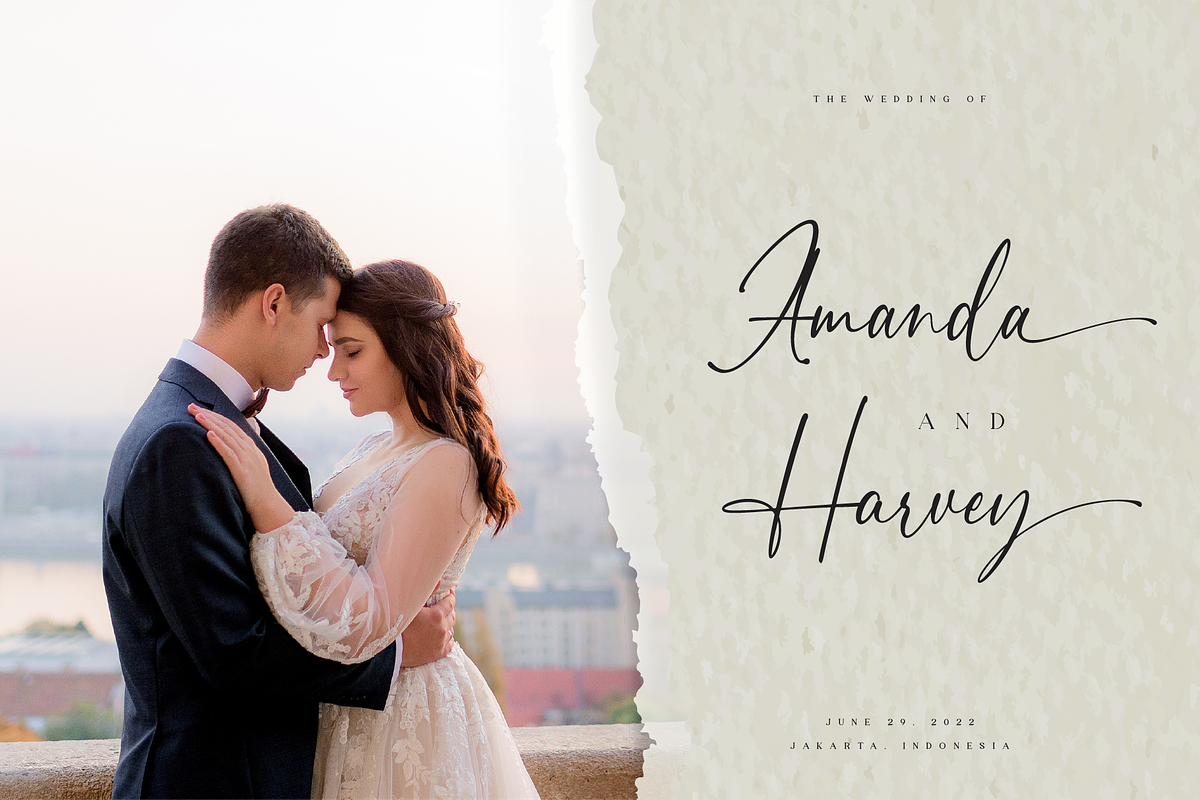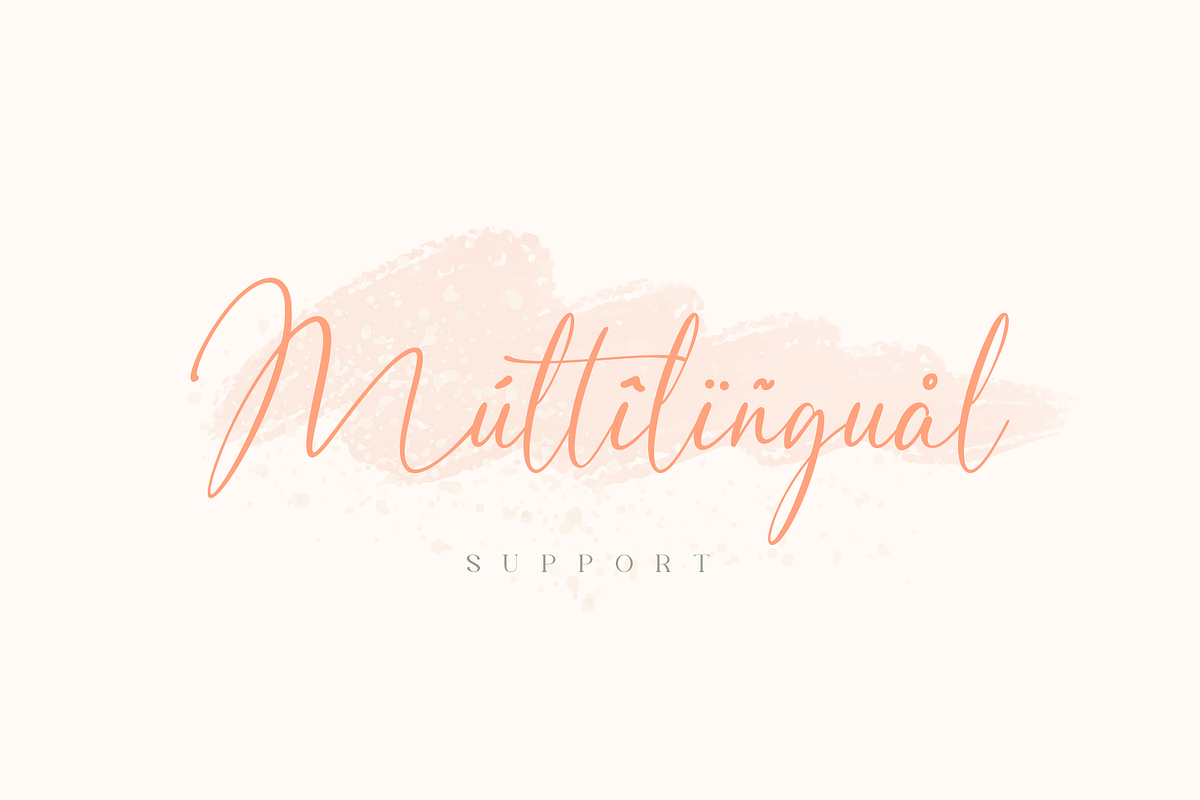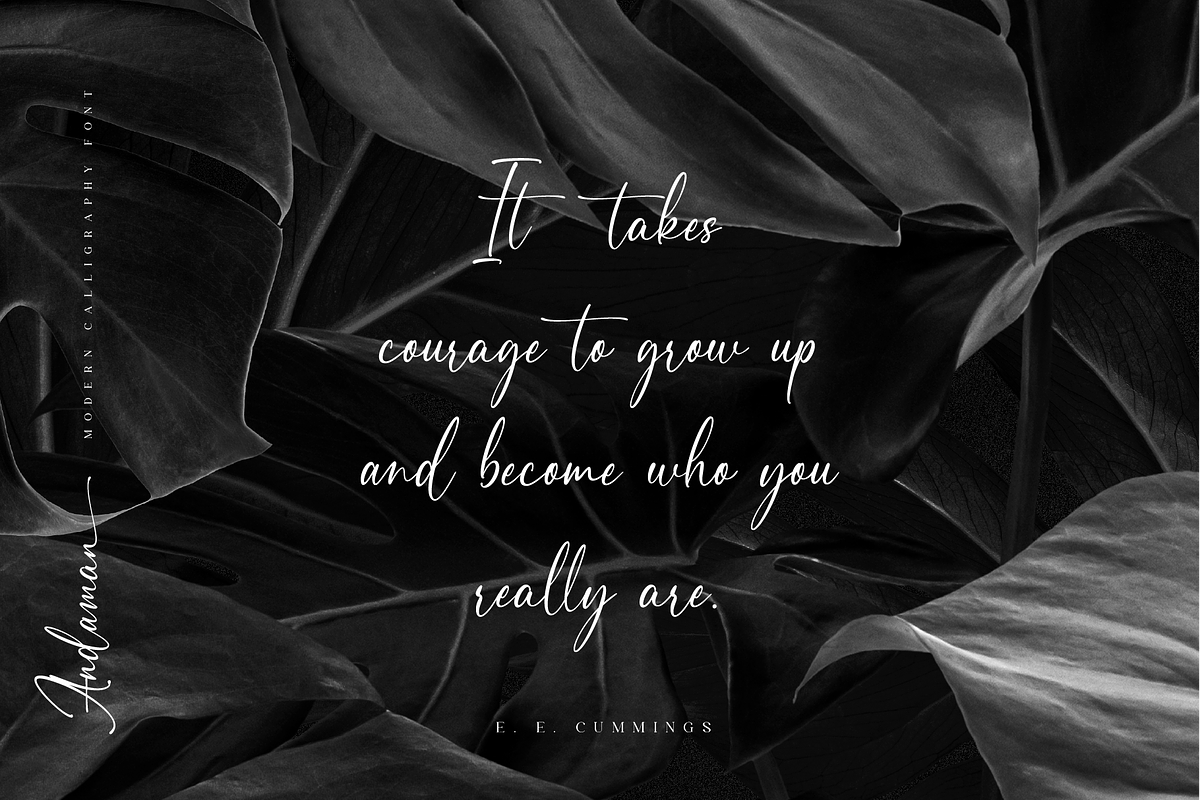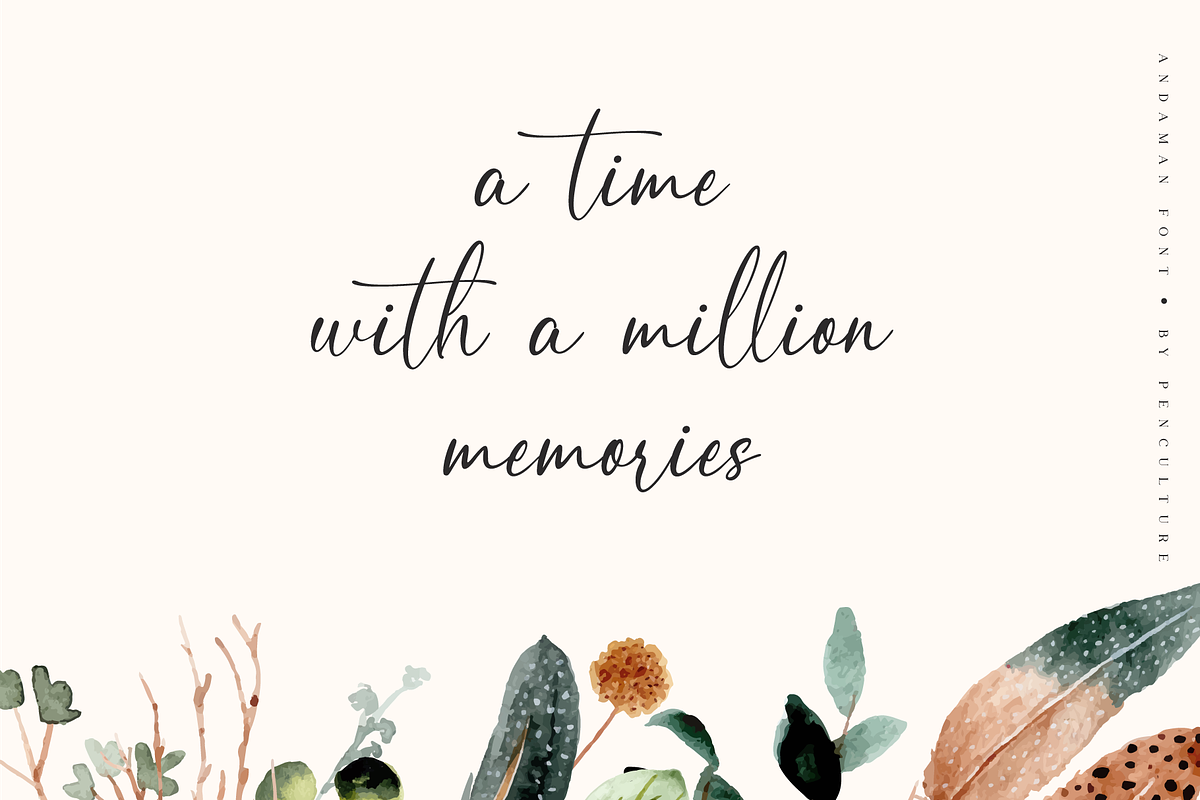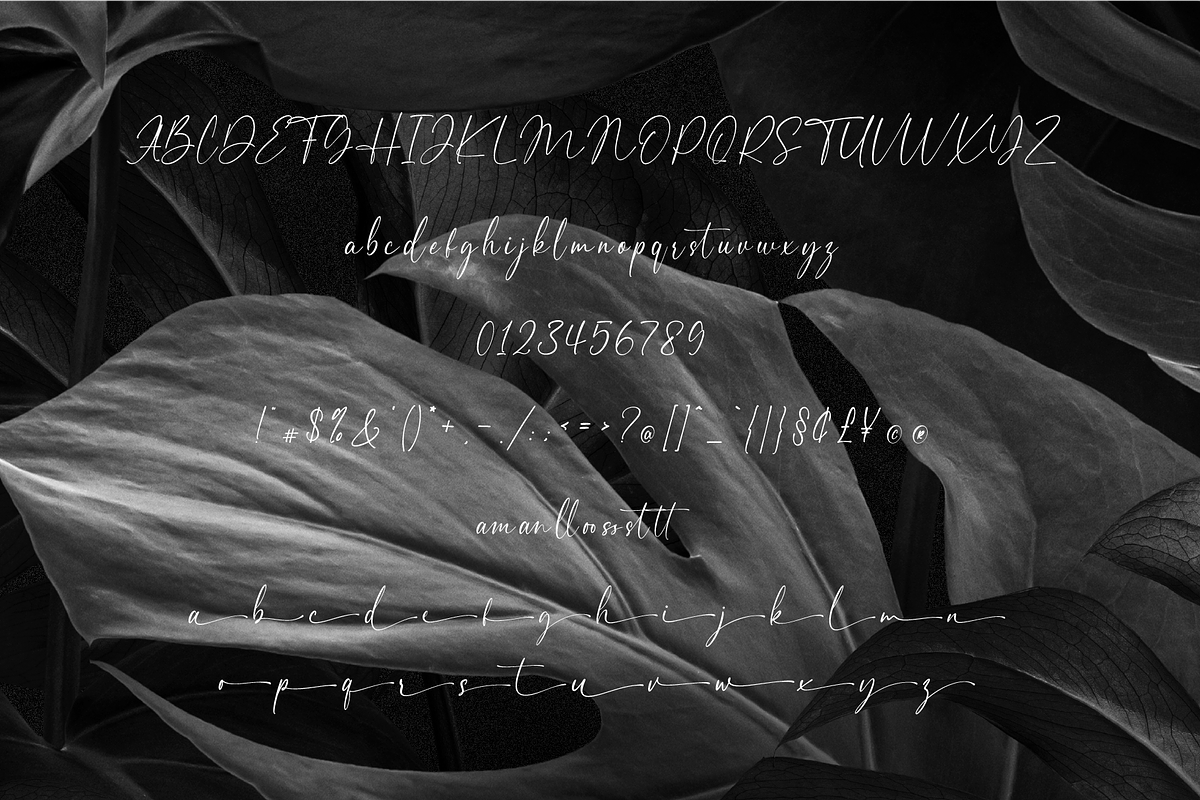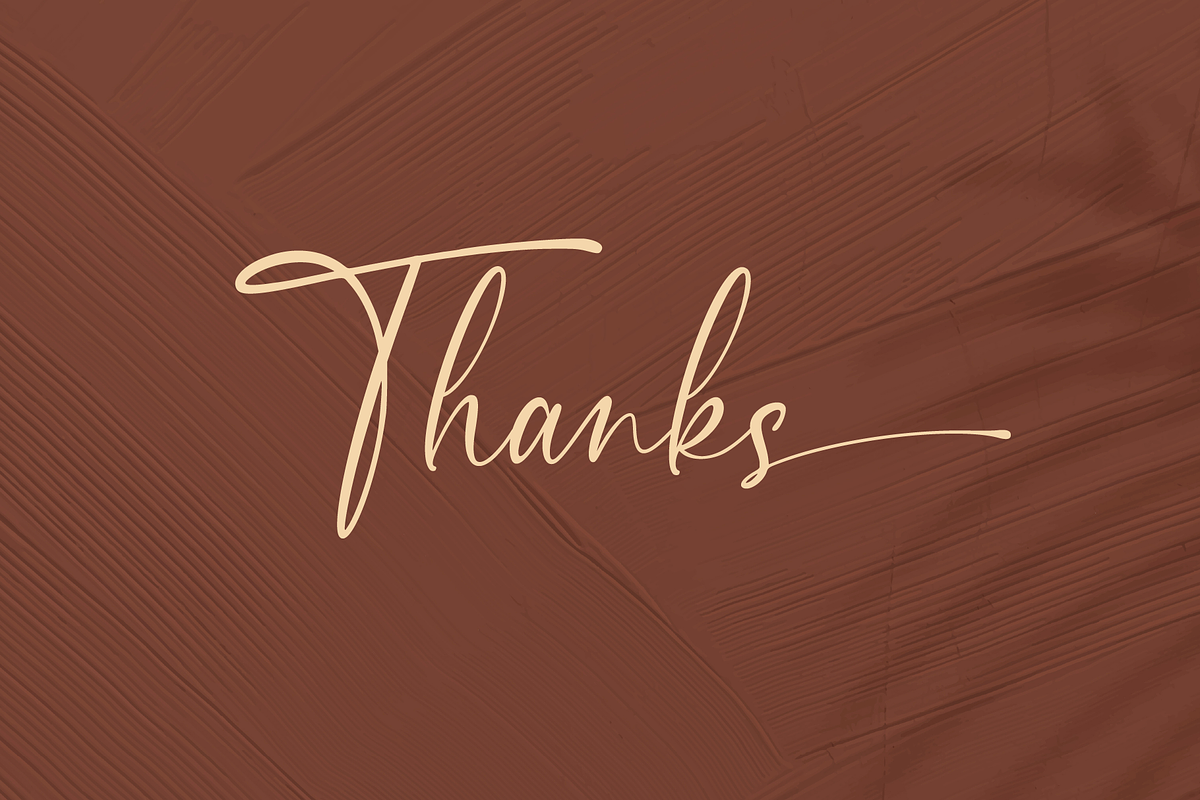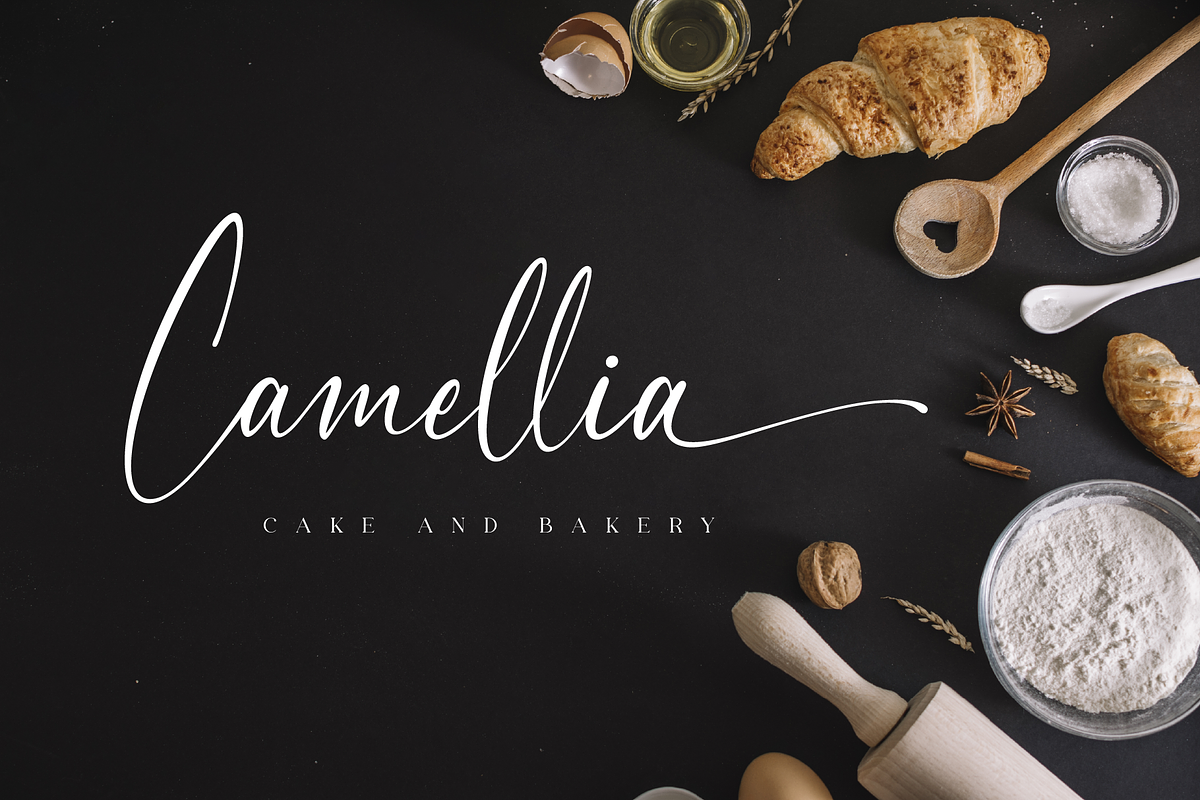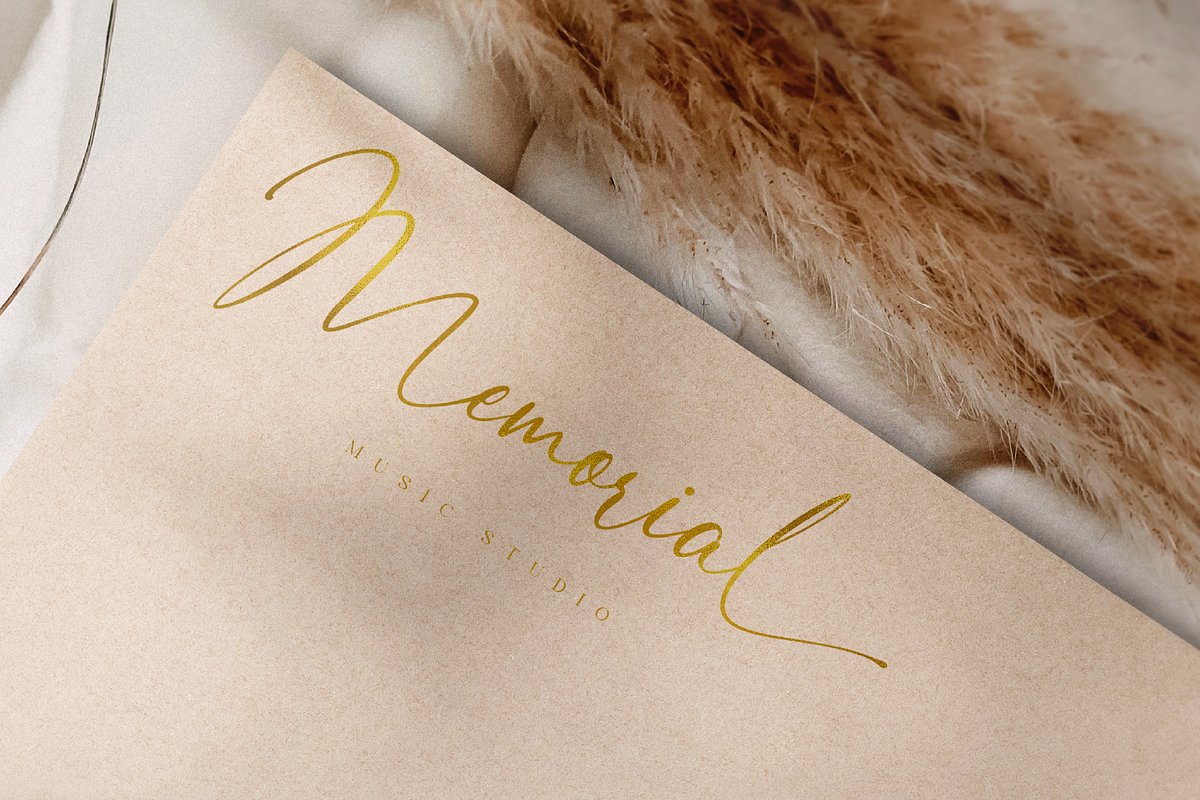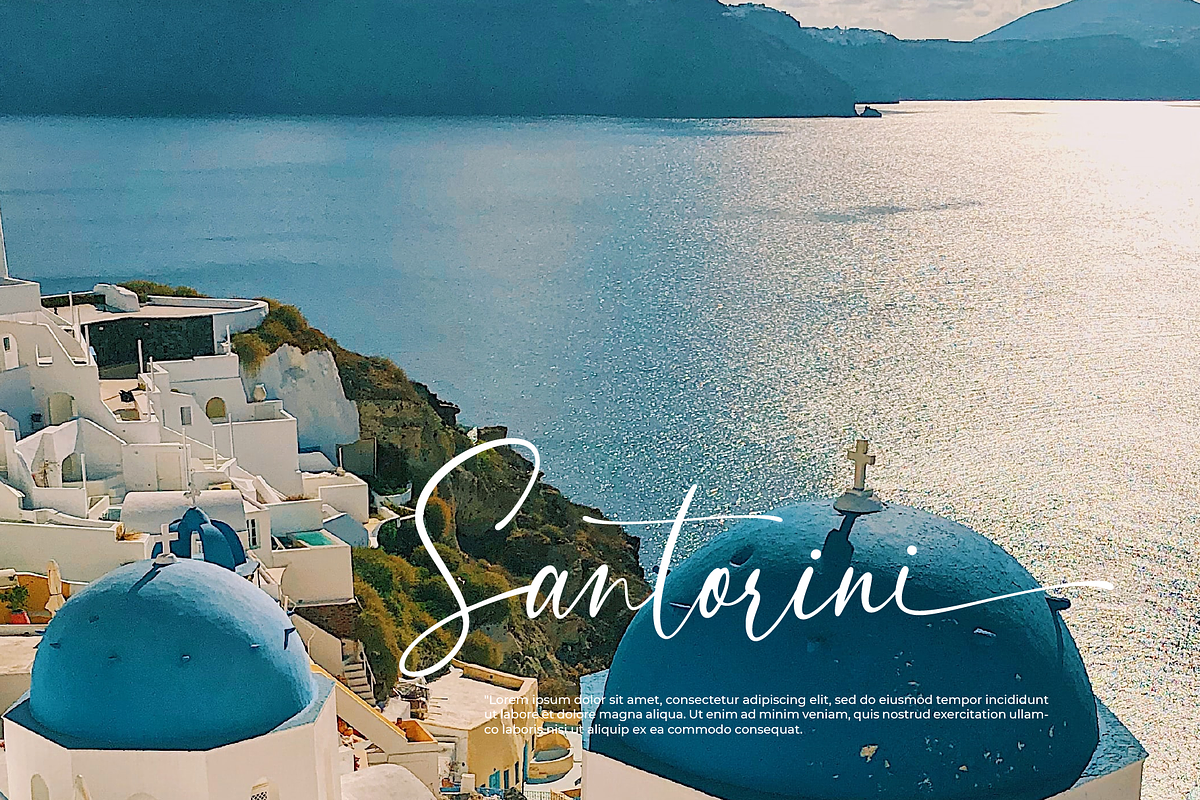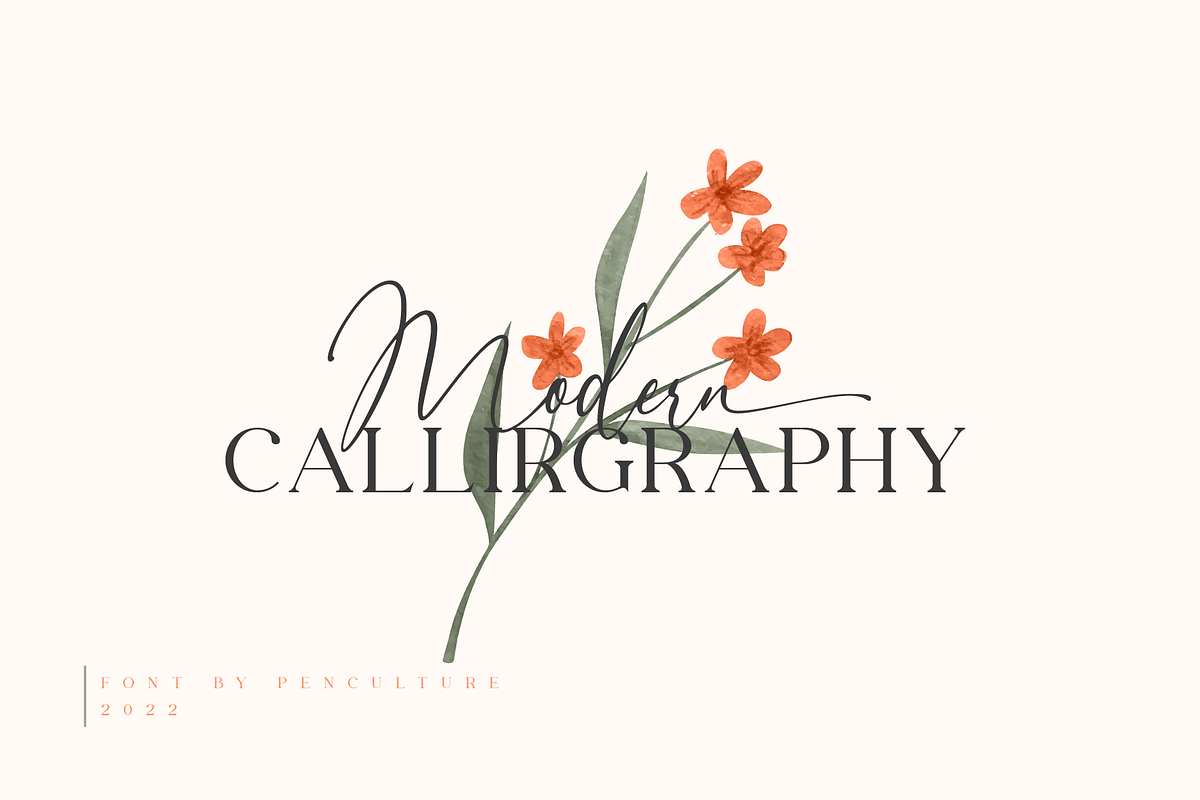
Andaman // Modern Calligraphy Font
Andaman is carefully crafted modern calligraphy font, this font comes with ligature and artificial swash which will be very suitable for branding, logos, fashion projects, posters, magazines and many more.
- Fully uppercase and lower case
- Number and punctuation
- Ending Swash